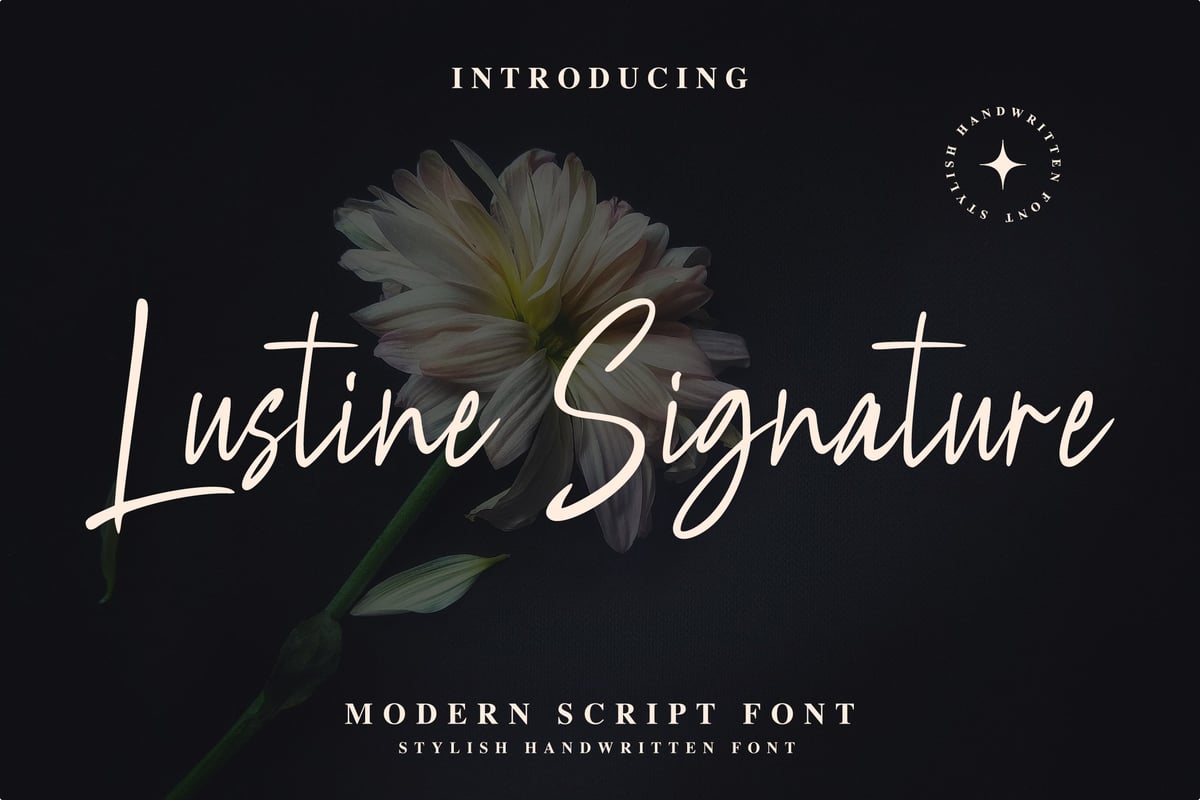
Lustine Signature – Modern Script Handwritten Font
Lustine Signature is the elegant handwritten script font your branding has been waiting for.
With smooth, flowing strokes and a natural signature-style character, this modern script typeface brings warmth, personality, and a refined touch to any design project. Whether you're crafting a luxury logo or a lifestyle social post, Lustine Signature delivers effortless sophistication.
It's an ideal fit for a wide range of creative applications:
- Branding & logo design
- Packaging & product labels
- Food & beverage visuals
- Luxury & lifestyle designs
- Posters, social media, and editorial layouts
- Invitations and fashion/beauty projects